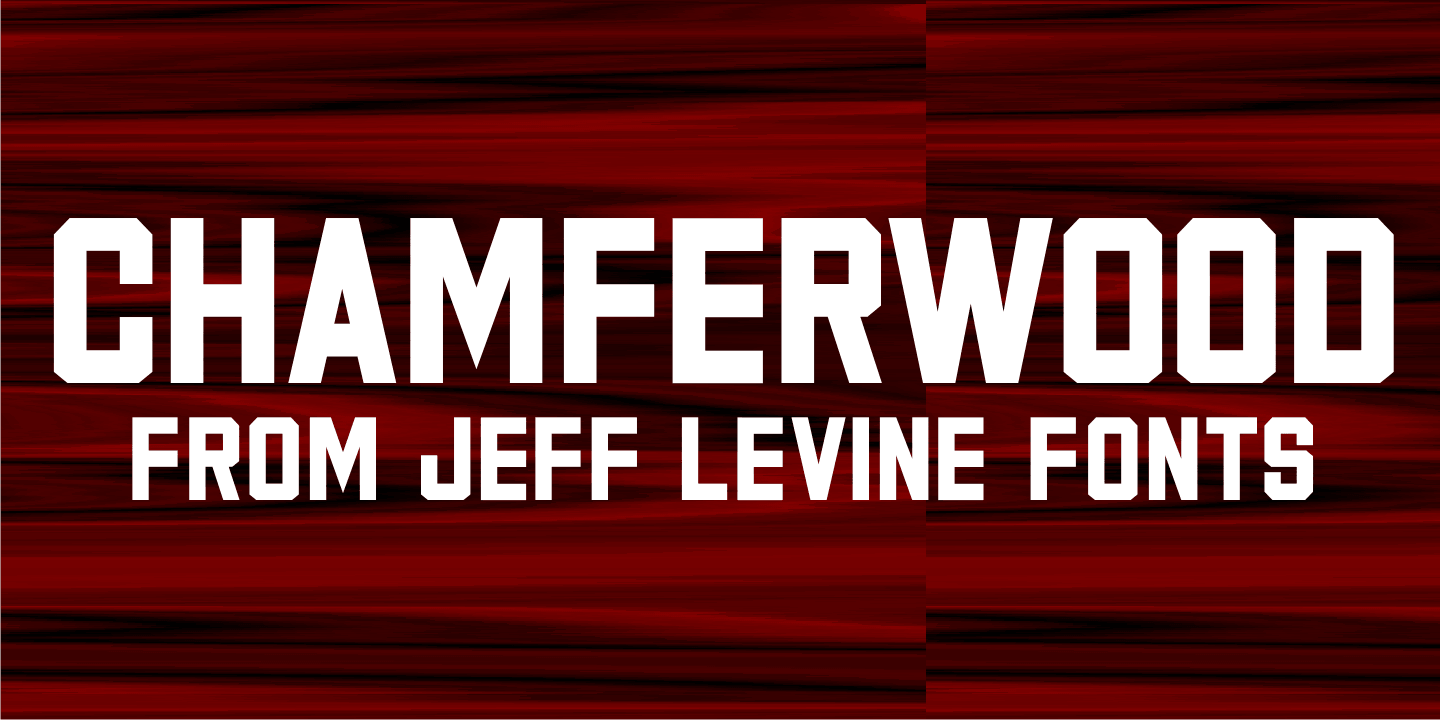
Chamferwood JNL is a display sans font published by Jeff Levine Fonts.
Chamferwood JNL is another interpretation of the block lettering style most popular during the late 1800s and the early 1900s. The design was modeled from examples from a set of wood type.